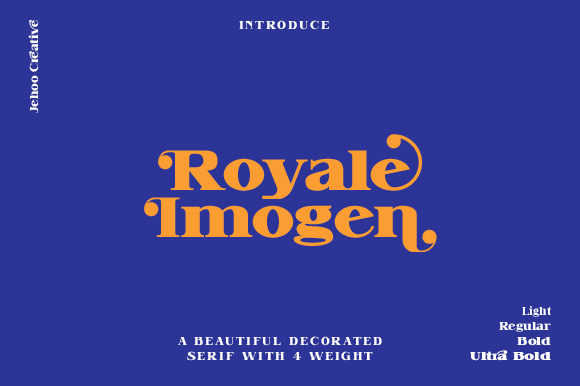
Indulge in the timeless beauty and enchanting allure of Royale Imogen, the serif font that will ignite the flames of romance in your creative endeavors.
Royale Imogen is more than just a font; it's a gateway to a world of exquisite elegance and heartfelt expression. Its graceful curves and delicate flourishes evoke the spirit of classic love letters, promising to add a touch of enchantment to every word you write.
Picture yourself crafting wedding invitations that exude an air of timeless romance, where the words dance across the page with a captivating charm. Create heartfelt letters that convey the depths of your emotions, where each stroke of the pen carries the weight of a thousand tender sentiments.
Royale Imogen is not merely a font; it's a captivating companion that will elevate your stationary art to new heights of beauty. With its versatile style, it effortlessly adapts to any creative vision, allowing you to create stunning social media posts that captivate your audience and leave an unforgettable impression.
Whether you seek to express your love, celebrate a special occasion, or simply add a touch of elegance to your everyday creations, Royale Imogen is the font that will make your words come alive. Immerse yourself in its enchanting embrace and let the magic of romance flow through your fingertips.